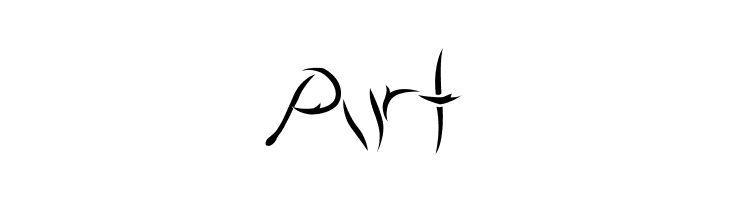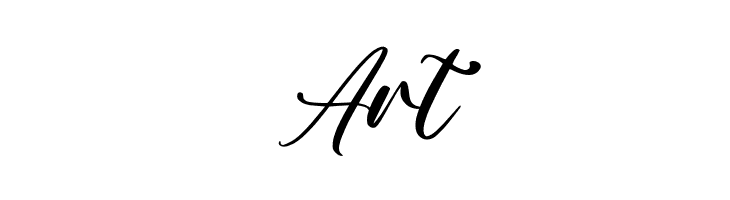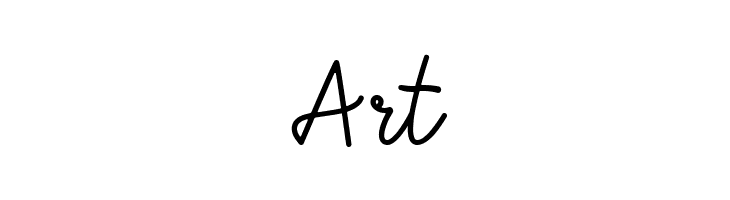
An ultra-light, tall, and narrow font with a modern, minimalist style.
A bold, three-dimensional font with a vintage yet modern style.
A dynamic and elegant script font with fluid, cursive letterforms.
A playful, casual handwritten font with fluid strokes and a consistent slant.
A dynamic and artistic font with sharp, thorn-like extensions and flowing forms.
A dynamic and elegant script font with a modern touch.
A whimsical and eclectic font with playful, decorative elements.
Elegant script font with a handwritten style.